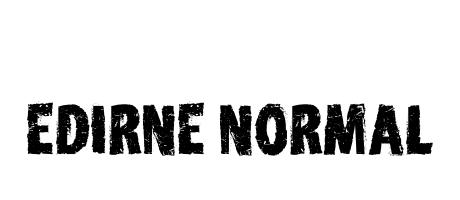
Edirne
By Iordanis Passas
Edirne Normal is a bold, sans-serif typeface with a distinct grunge texture. Its heavy weight and slightly irregular edges give it a raw, almost distressed look. The letterforms are chunky and solid, suggesting strength and stability, while the texture adds a touch of rebellion and grit. It's a font that commands attention.